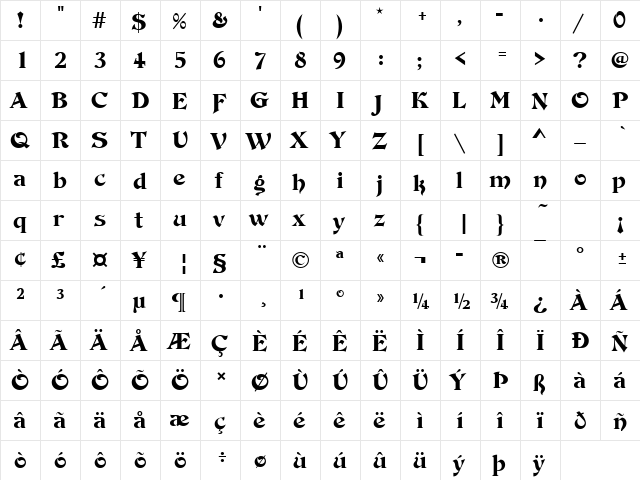
De Vinne Becker Ornament Regular
Design Context for De Vinne Becker Ornament Typeface
De Vinne Becker Ornament brings ornamental detail and strong personality to headlines and identities, where visual impact matters more than quiet functionality.
Font Pairing: Pair with a clean neutral sans-serif for body copy to let De Vinne Becker Ornament's character lead without overwhelming the composition.
Pro Tip: Use De Vinne Becker Ornament exclusively at display sizes — it was designed to be seen, not read at length. Let a neutral companion handle body copy.